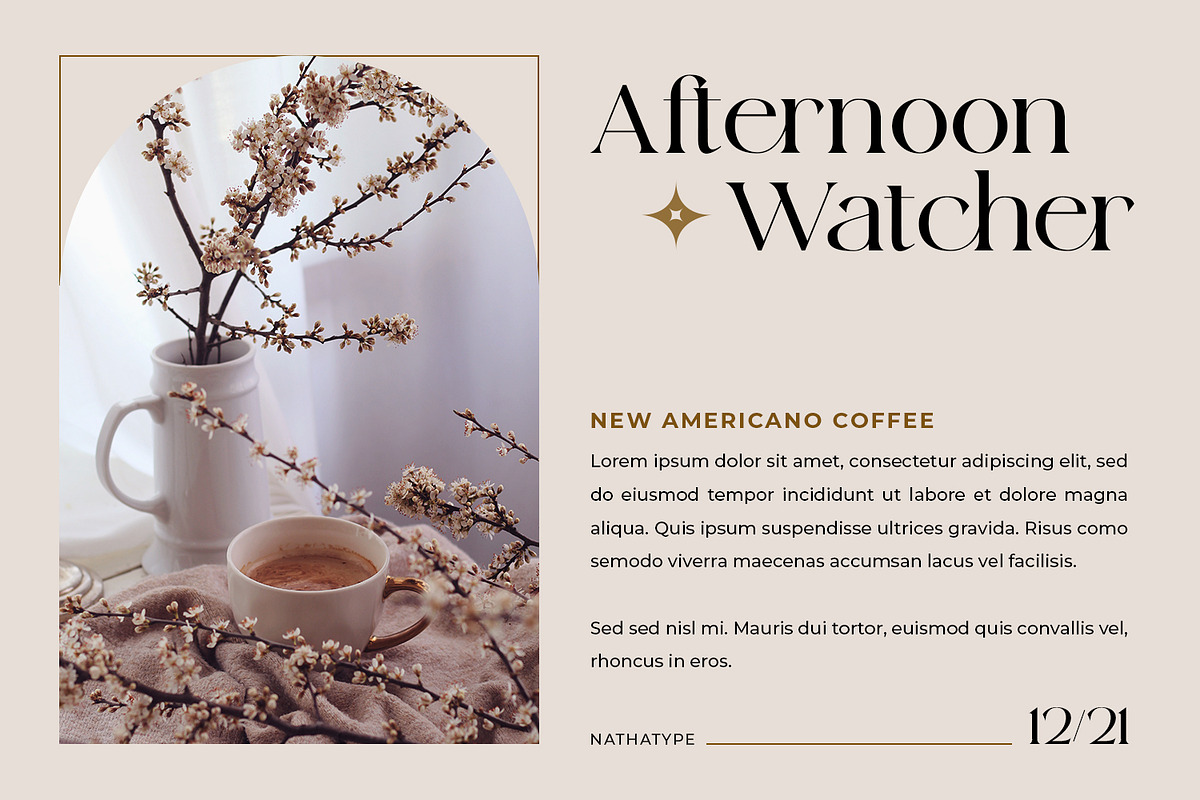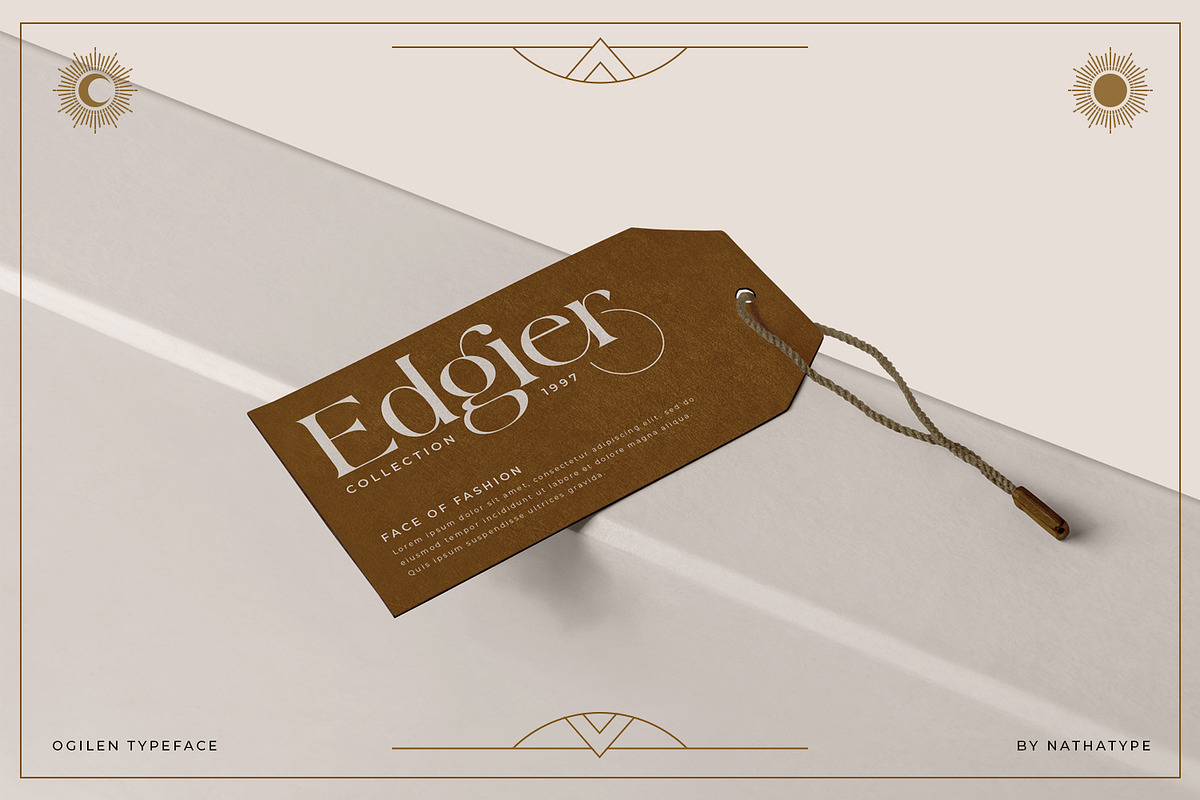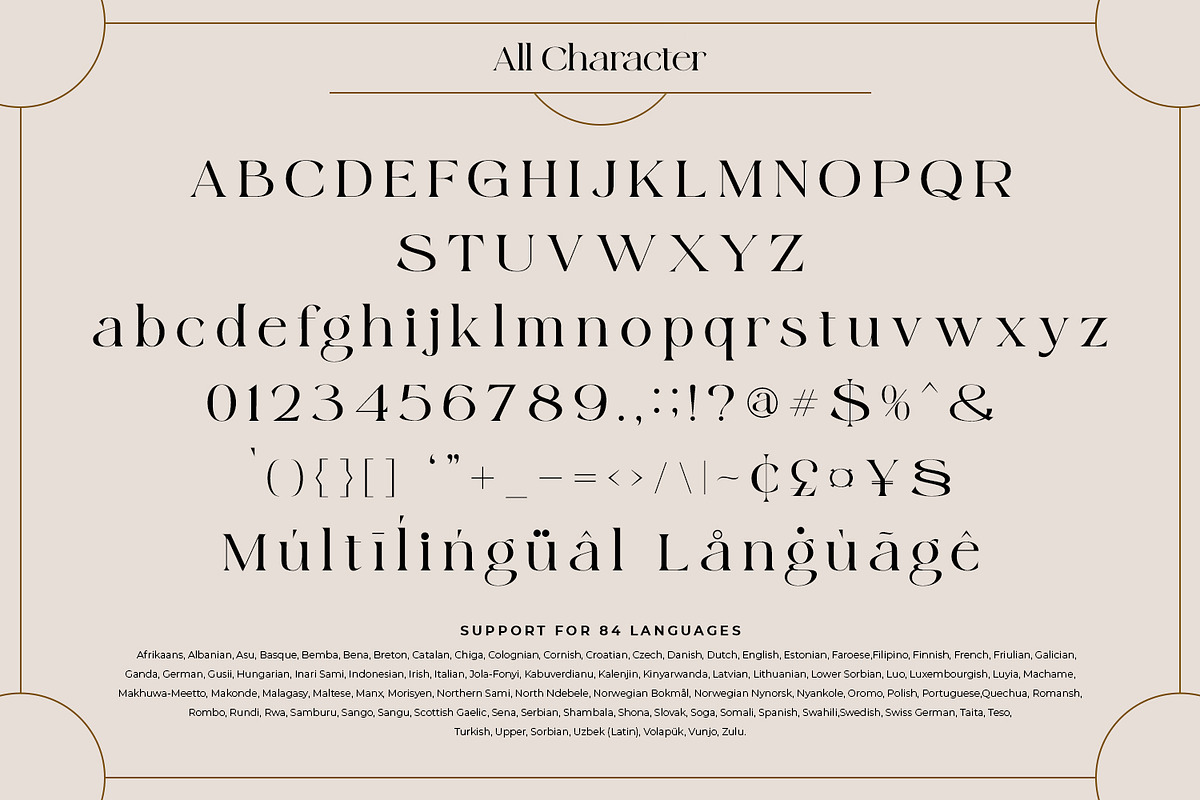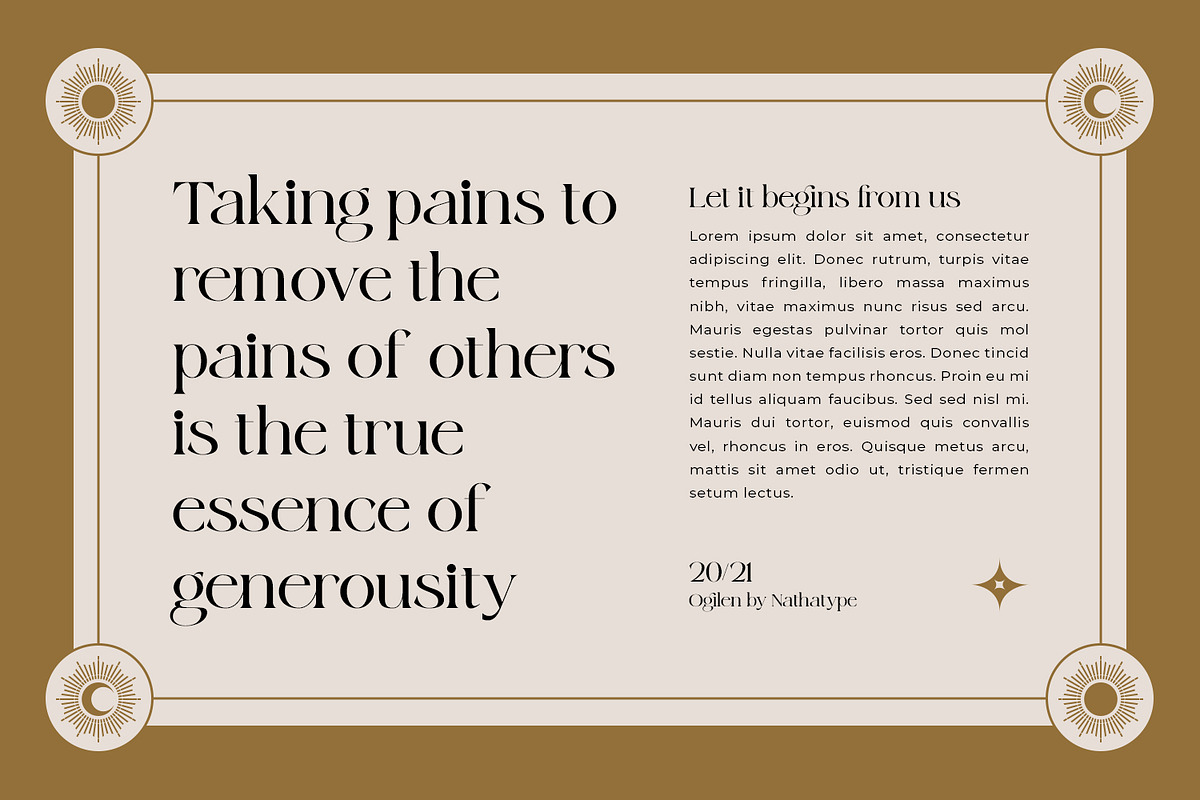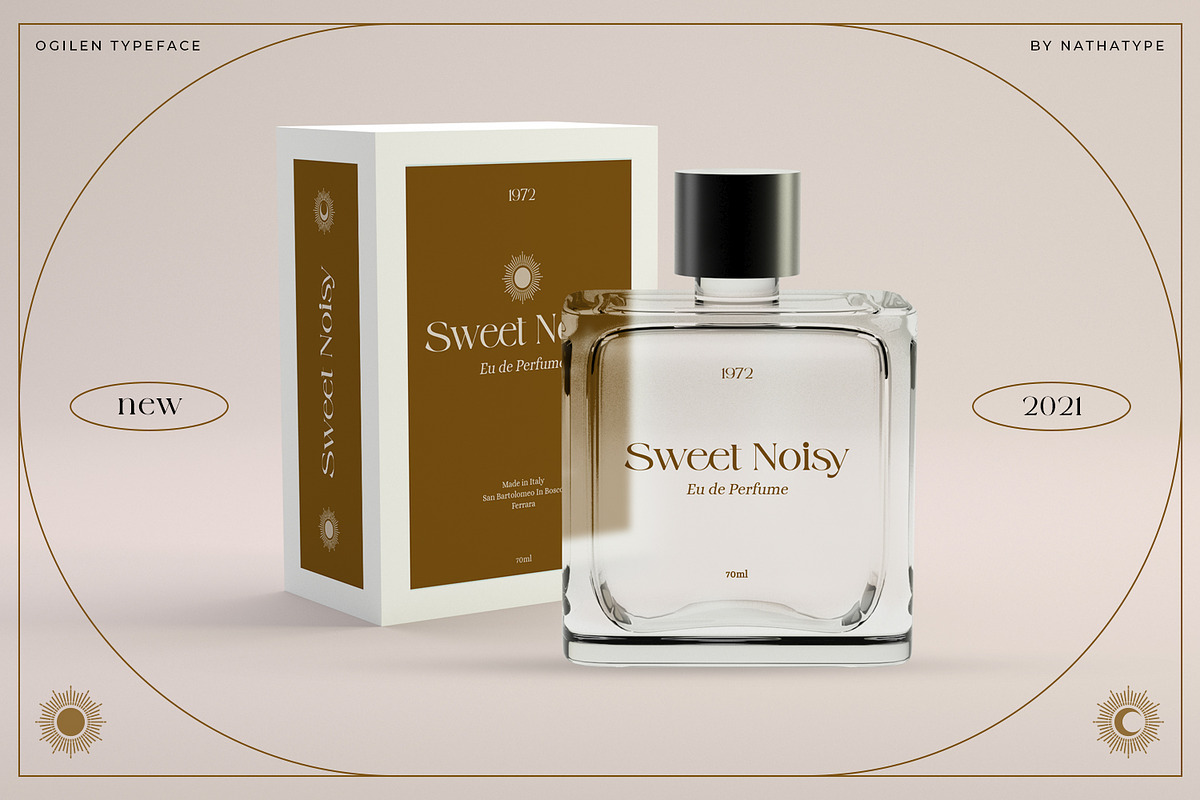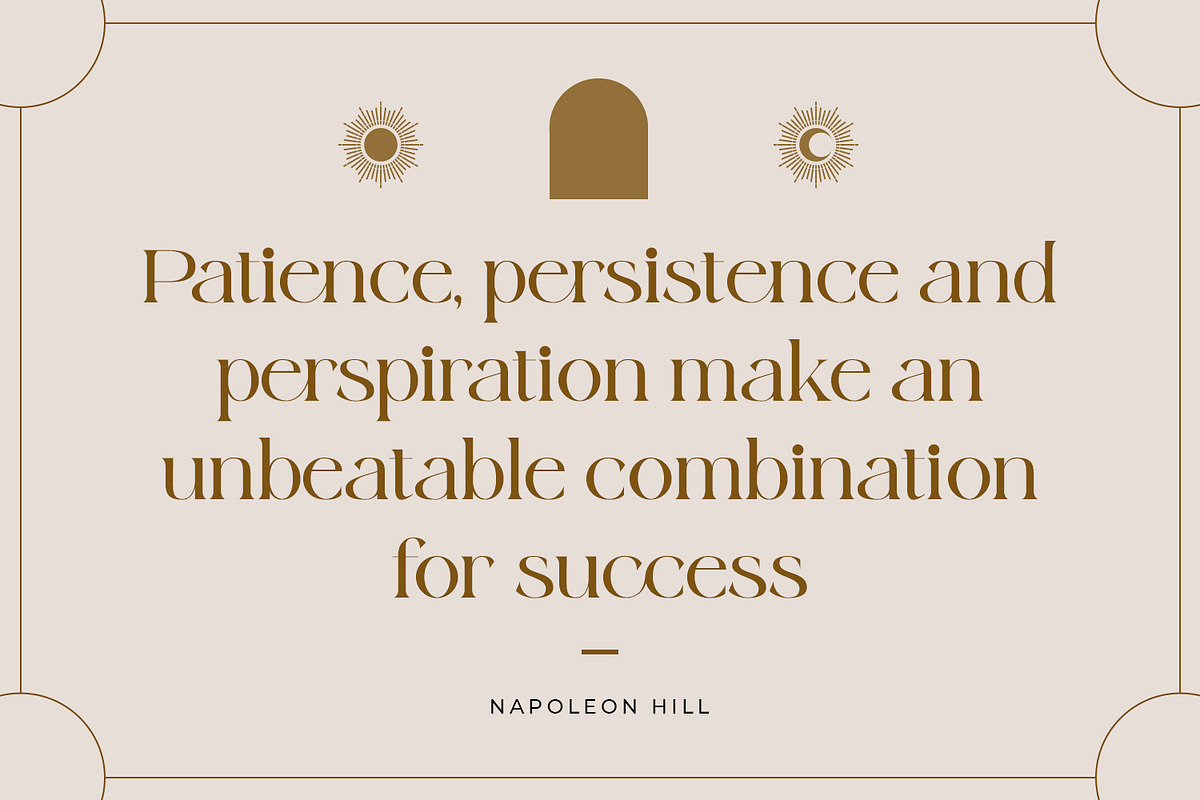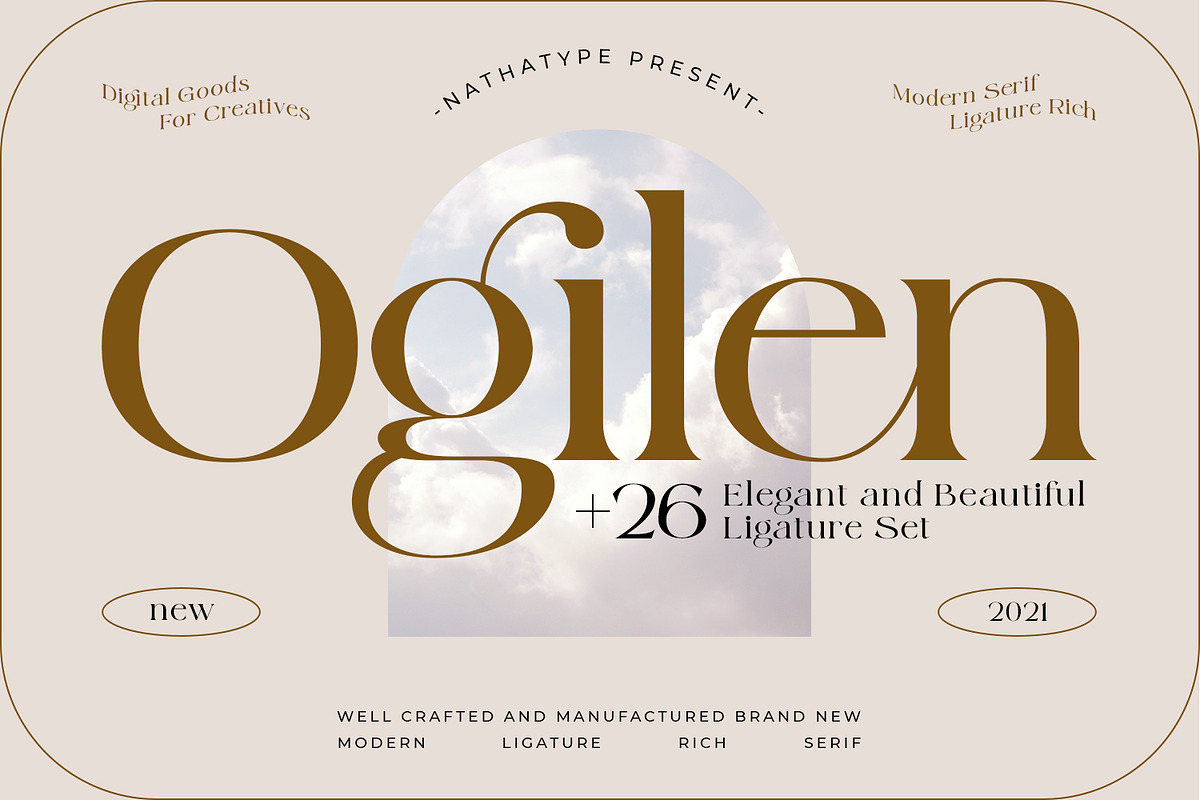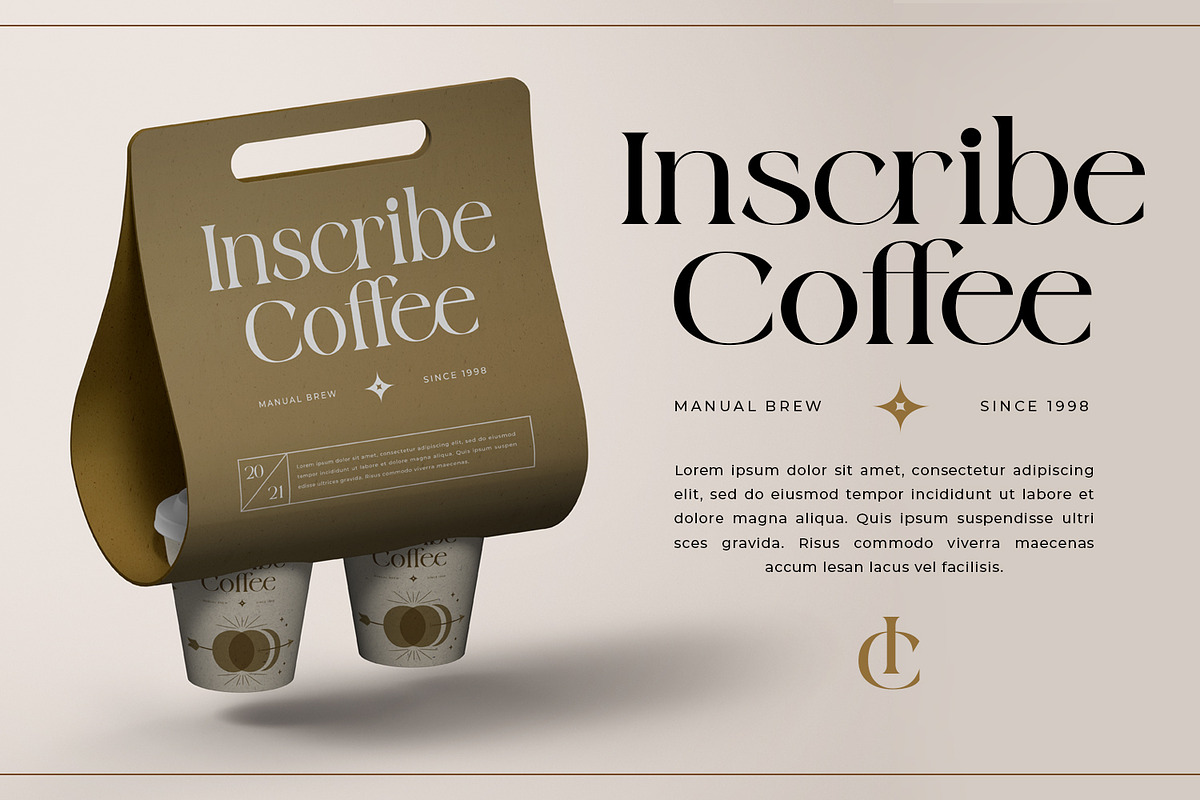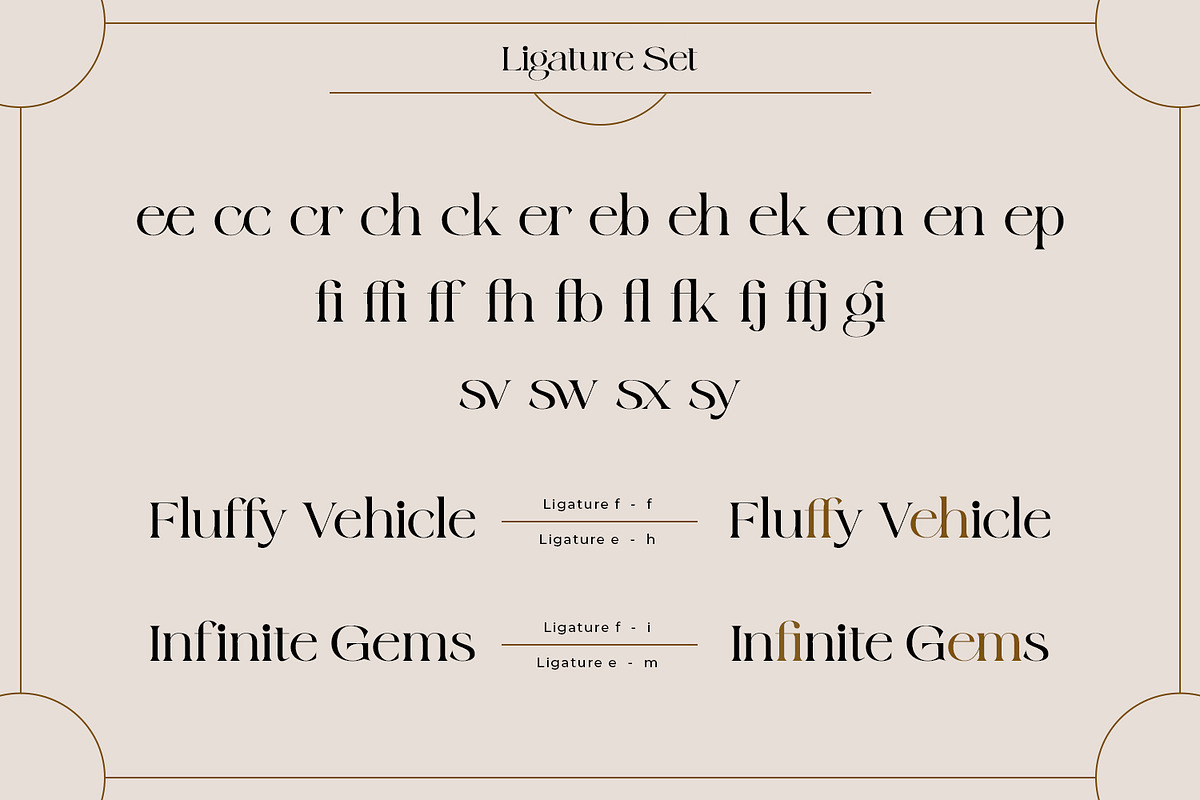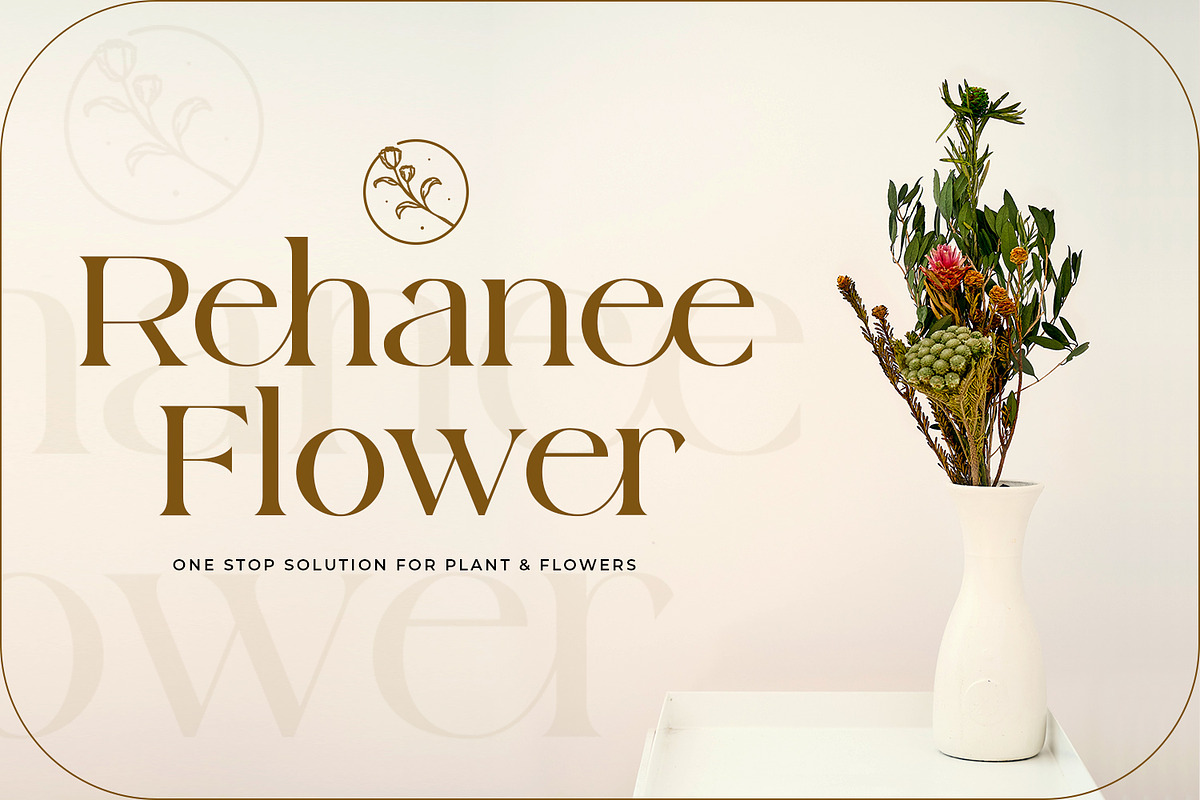
Ogilen
Are you looking for a serif font? Do you dream of creating headings that stand out and inspire creativity, imagination, and endless fun? If you are looking for a modern but still elegant, something that can makes your project or design being so special. You better not going to want to miss this one!
Ogilen-A Serif Font
Ogilen is a serif font in a luxurious, classy, and timeless style. A font that is inspired from recently trend style making this font the best choice to whatever your design is. Ogilen is mainly intent for logo, headings, branding, magazine, cover album, book cover, movie, apparel design, quotes, invitations, flyer, poster, greeting cards, product packaging, printed quotes, etc. Hope it helps to capture the soul of any design.
Our font always includes Multilingual Support to make your branding reach a global audience.